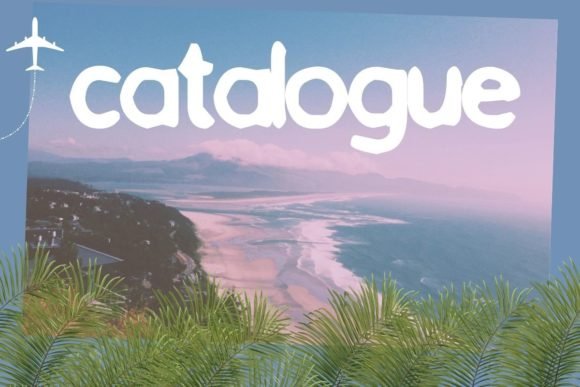
Discovering the Perfect Typeface for Your Designs
Do you ever find yourself scrolling through a beautiful magazine or a stunning website, and suddenly, you’re captivated by the font used? It’s as if the text is speaking directly to you, drawing you in with its unique character. That’s exactly what happened to me when I stumbled upon the Catalogue Sans Serif font. Its minimalist design and striking aesthetic had me hooked from the very start.
As a designer, you’re constantly on the lookout for the perfect typeface to elevate your projects. And that’s exactly what the Catalogue Font offers – a versatile and beautiful font that’s suitable for a wide range of designs, from scrapbooking to publishing and beyond. With its clean lines and modern feel, this font is a valuable addition to any designer’s toolkit.
Whether you’re a seasoned pro or just starting out, the Catalogue Font is a must-try for any design project. Its simplicity and elegance make it the perfect choice for creating stunning visuals that grab attention and leave a lasting impression.
Catalogue Font Key Features
- Size: The font family consists of 24 styles, ranging from Thin to Black, providing ample options for designers and typographers to achieve the desired visual effect.
- Unique Characteristics: Catalogue Font features a distinctive, elegant design with refined lines and subtle flair, making it suitable for use in corporate branding, editorial content, and luxury packaging.
- Scalability: Catalogue Font is designed to be highly scalable, allowing it to maintain its legibility and beauty at various font sizes, from small captions to large headlines.
Catalogue Font Review
Overall, I’m quite impressed with the Catalogue Font, a versatile sans-serif typeface that’s perfect for a wide range of applications. Here are some of its standout features: ✨
- Open and airy feel, making it ideal for digital use.
- Wide language support, including Latin, Greek, Cyrillic, and more.
- Available in a range of weights and styles, from light to bold.
- Solid legibility, even at small font sizes.
- No dramatic flair or unique personality.
- Some users may find it too clean and minimalist.
- Not ideal for use in situations where a more formal or traditional feel is desired.
In conclusion, the Catalogue Font is a solid choice for designers looking for a reliable, all-purpose sans-serif typeface. While it may not be the most exciting or attention-grabbing option, it gets the job done with ease. If you’re looking for a clean, modern font that’s easy to read and works well across a variety of contexts, the Catalogue Font is definitely worth considering.
Tips for Getting the Most Out of Catalogue Font
Use catalogue font for headings and titles to create a visually appealing and organized layout.
Experiment with different font sizes and colors to create contrast and emphasis.
Use catalogue font in conjunction with other design elements such as images and graphics to create a cohesive look.
Catalogue font is commonly used in e-commerce websites, product catalogs, and marketing materials to create a professional and organized look.
It is also used in publications such as magazines and brochures to create a visually appealing and easy-to-read layout.
What is the recommended font size and line height for Catalogue Font?
The recommended font size for Catalogue Font is 12-14 points, with a line height of 1.2-1.5 times the font size. This will ensure optimal readability and balance in your design.